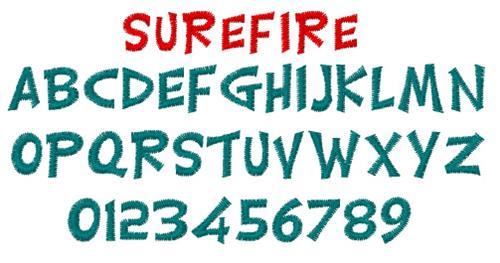
Internet Stitch is happy to present Surefire machine embroidery font which has Bold red filled-in embroidery font 'SUREFIRE' adds a substantial look, perfect for jackets and caps. Available in ELP formats. included. If you would like to view more embroidery fonts and alphabets please search our embroidery fonts page.